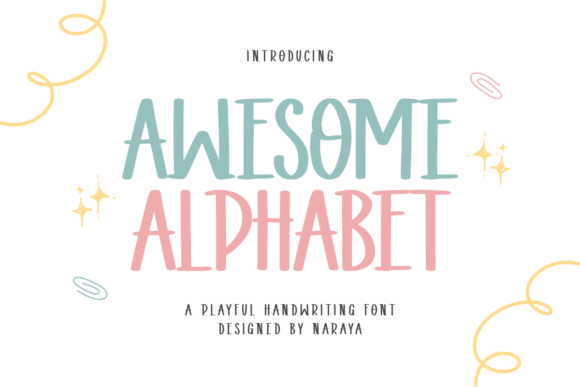
Discover the Joy of Handwritten Typography
Do you remember the excitement of creating a handmade card for a loved one or designing a custom journal for yourself? The thrill of bringing a personal touch to a project is something that never gets old, and with the right tools, the possibilities are endless. As designers and creatives, we’re always on the lookout for fonts that capture the essence of our personality and style.
Enter the Awesome Alphabet Font, a charming display font that embodies the spirit of handwritten typography. With its clean, bouncy lines and monolinear weight, this font is the perfect choice for adding a touch of warmth and personality to your creative projects. Whether you’re designing for craft-based businesses or simply looking to add a personal touch to your social media content, the Awesome Alphabet Font is an excellent choice.
Key Features of Awesome Alphabet Font
- Unique Hand-Drawn Design: The Awesome Alphabet Font features a unique hand-drawn design with bold, playful lines and characters that are perfect for adding a personal touch to your designs.
Awesome Alphabet Font Review
Overall, I think the Awesome Alphabet Font has some nice features, but it also has some limitations that hold it back. ✨
- ✨ Unique and playful design that’s perfect for creative projects
- ✨ Wide range of font sizes and styles to choose from
- ✨ Supports both uppercase and lowercase letters, numbers, and special characters
- ⚠️ Not ideal for formal or professional projects due to its playful nature
- ⚠️ Some letters may not display correctly in certain font sizes or styles
Overall, I think the Awesome Alphabet Font is a fun and creative addition to any project. However, it’s not without its limitations. If you’re looking for a font that’s perfect for a children’s book or a creative portfolio, this might be the font for you. But if you’re looking for a font for a formal project or one that’s highly customizable, you might want to look elsewhere.
The Awesome Alphabet Font is perfect for:
- Creating eye-catching social media graphics.
- Designing posters and flyers for events or promotions.
- Adding a playful touch to presentations and documents.
Alternatives to Awesome Alphabet Font for Designers
The Great Vibes font is a modern, elegant script font that is perfect for adding a touch of sophistication to your designs. It is ideal for use in logos, branding materials, and other creative projects where a unique and stylish font is required. Compared to Awesome Alphabet Font, Great Vibes has a more refined and polished look, making it a great choice for high-end designs.
The Carolyna Pro font is a stylish, handwritten font that is perfect for adding a personal touch to your designs. It is ideal for use in invitations, posters, and other creative projects where a unique and expressive font is required. Compared to Awesome Alphabet Font, Carolyna Pro has a more organic and whimsical feel, making it a great choice for designs that require a more emotional connection.